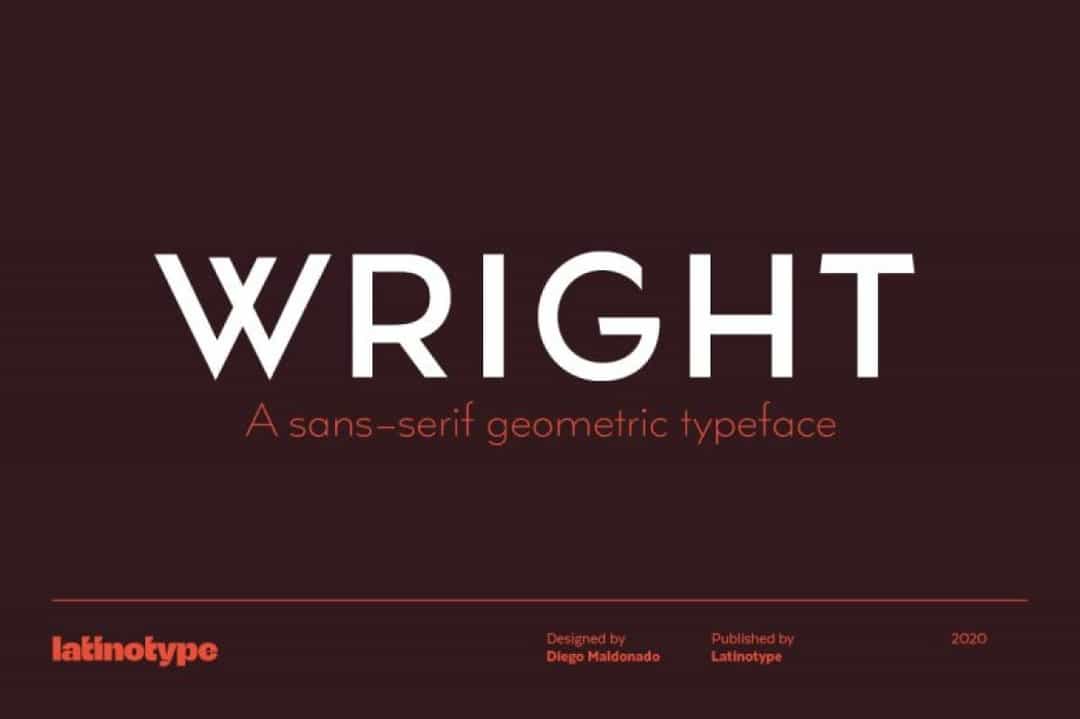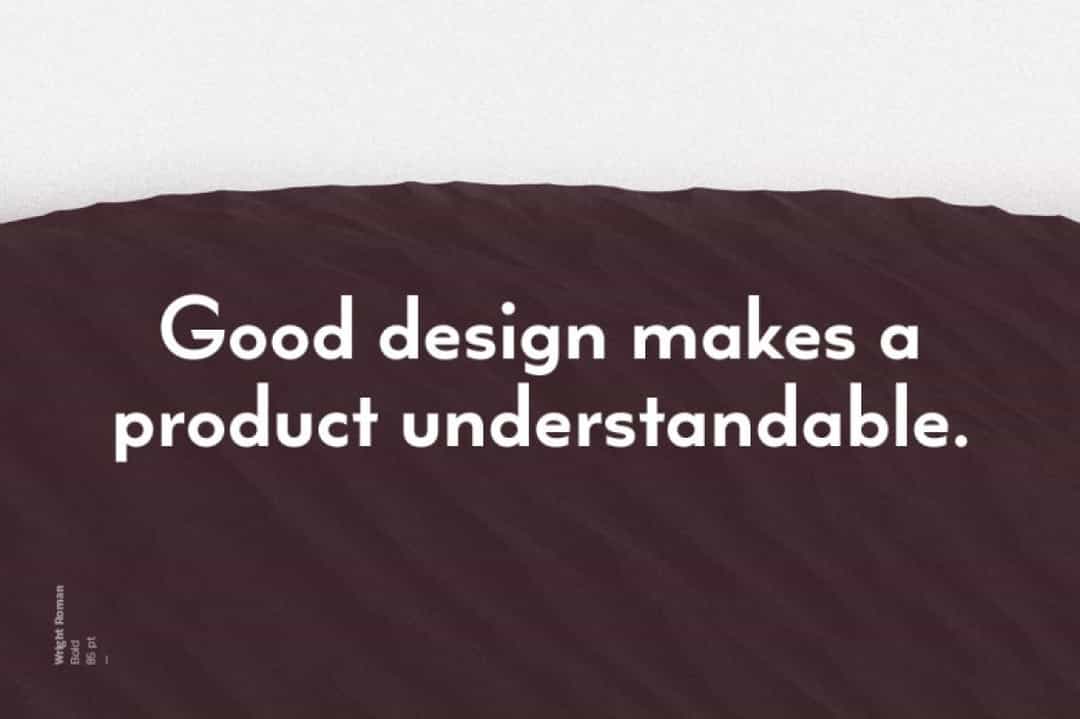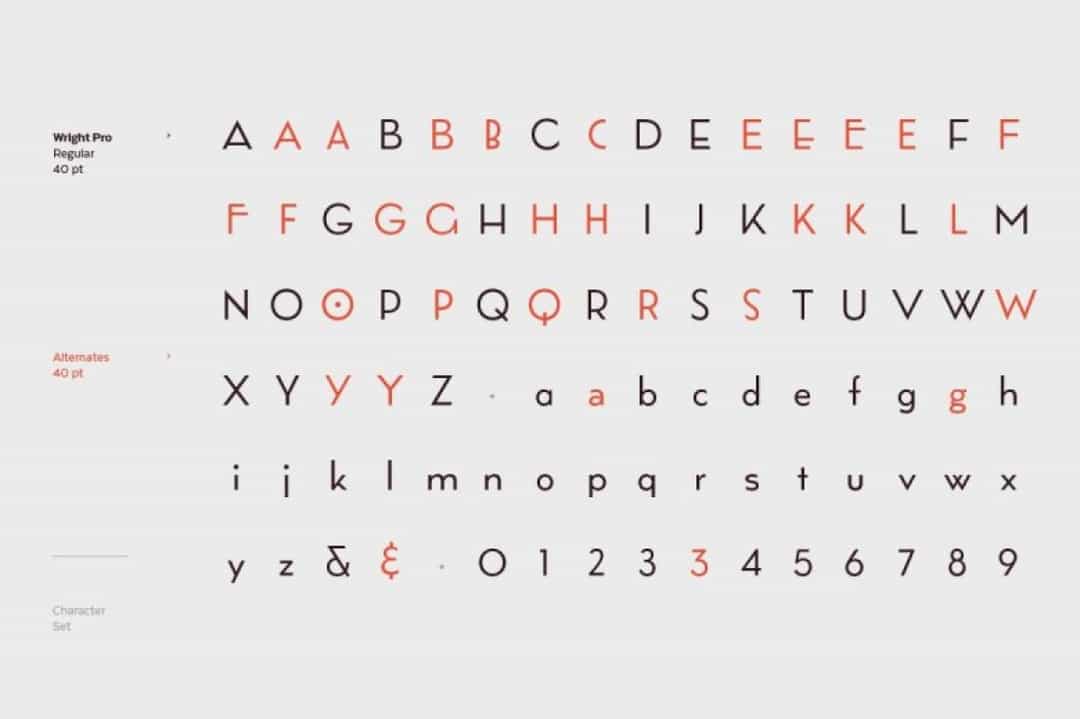
Wright Font is an uni-serif geometric typeface designed to replicate the lettering seen on modernist plans for buildings. Featuring a stylishly small x-height, tall ascenders, and broad capital letters – making this font perfect for short paragraphs and titles.